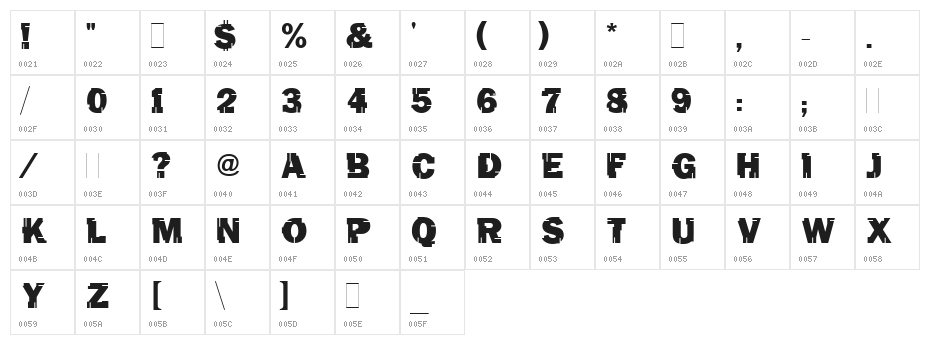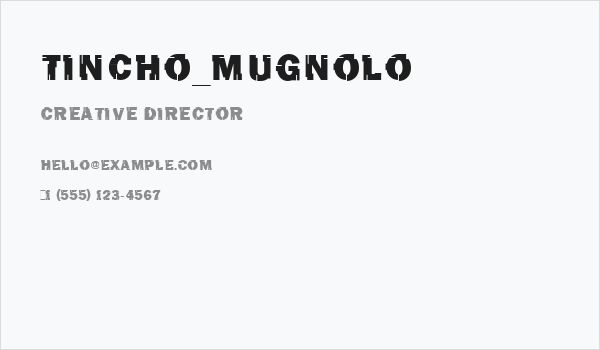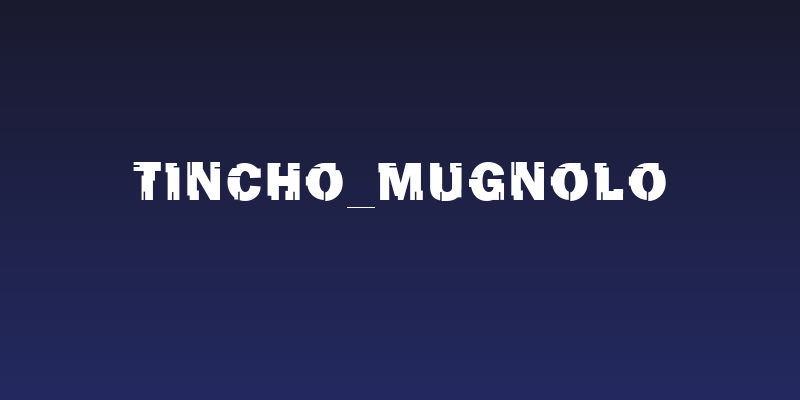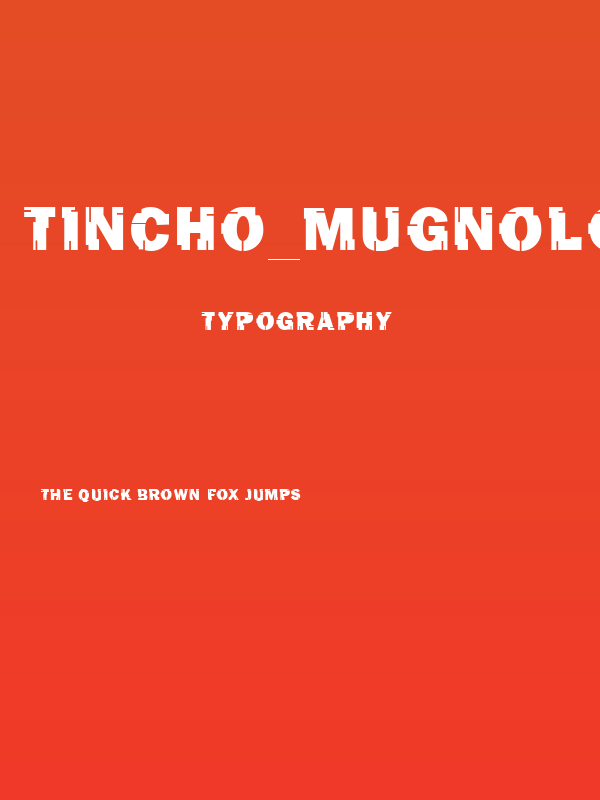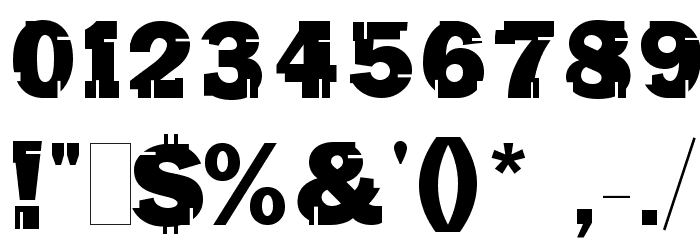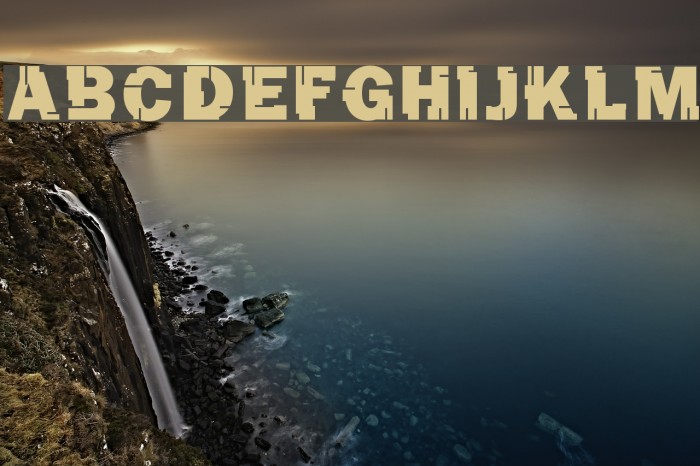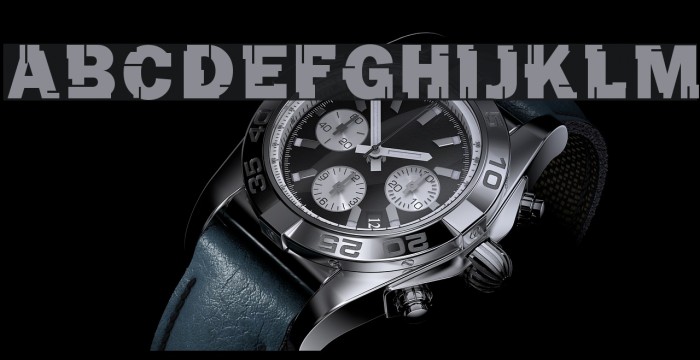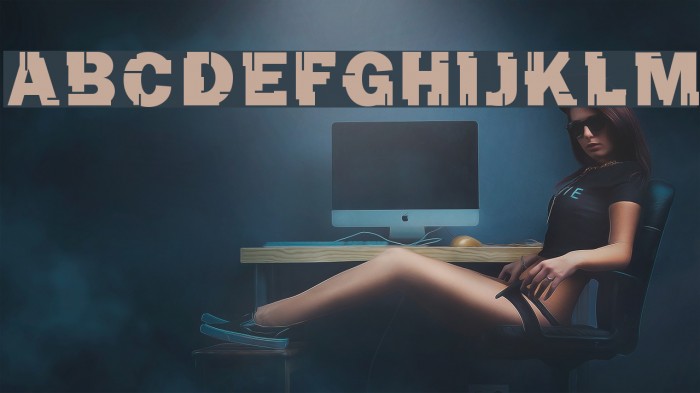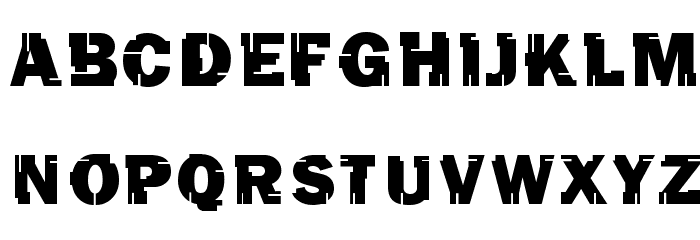
Tincho_Mugnolo Font
Tincho_Mugnolo Description
This font features a bold, impactful design with a strong presence. The characters are heavily stylized with a blocky, geometric structure that conveys a sense of strength and modernity. The uppercase letters are particularly striking, with sharp angles and a solid, robust appearance. The numbers and special characters maintain this bold aesthetic, ensuring consistency across all glyphs. The font's design is reminiscent of industrial or urban themes, making it suitable for projects that require a bold statement.
| Proposed Projects | Ideal for branding, posters, headlines, and any design that requires a bold, impactful typeface. |